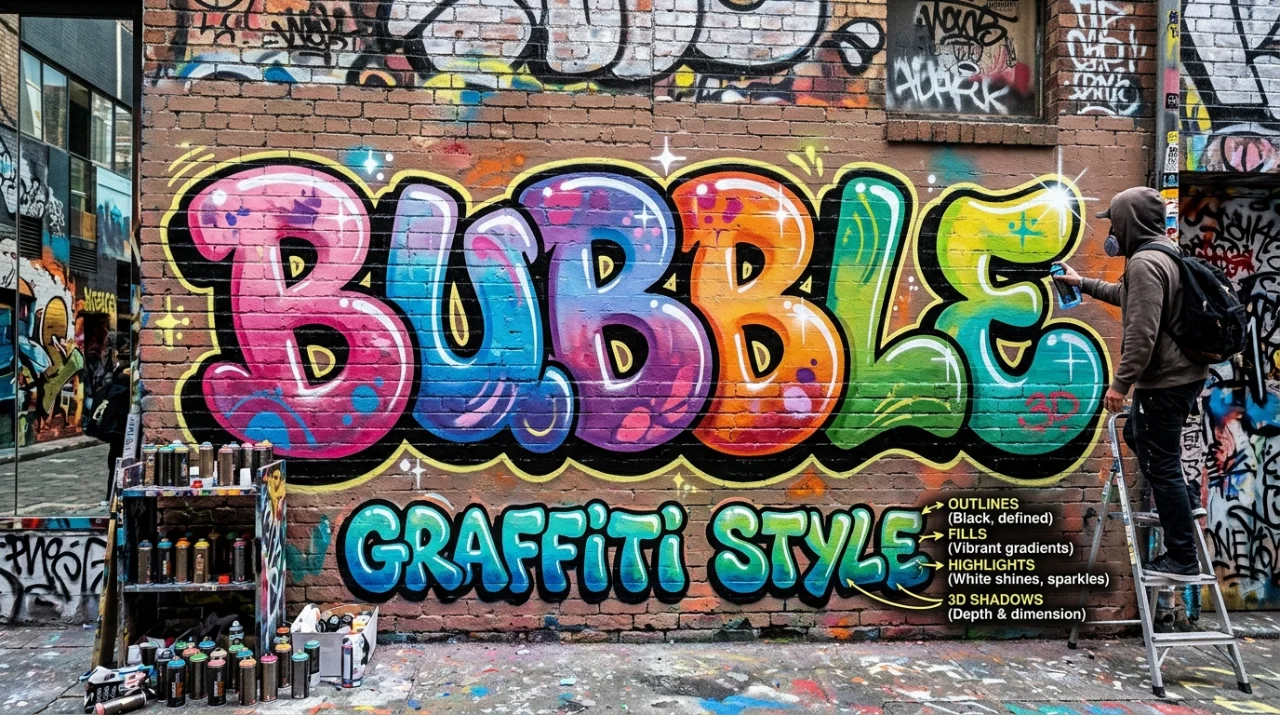
Bubble Graffiti Letters Guide Easy Steps, Styles Tips for Beginners
Bubble graffiti letters are one of the most popular styles in street art and lettering. They look soft, round, and playful, which makes them easy to read and fun to draw. If you are new to graffiti or want to improve your skills, this guide will help you understand everything in a clear and simple way.
What Are Bubble Graffiti Letters?
Bubble graffiti letter are rounded, puffy-style letters that look like bubbles. Artists use smooth curves instead of sharp edges. This style focuses on simplicity, flow, and bold outlines.
Many beginners start with this style because it is easy to learn. You do not need advanced drawing skills to create eye-catching results. At the same time, skilled artists can still make this style unique with colors, shadows, and effects.
Why Graffiti Letters Are So Popular
This style stands out for many reasons. First, it looks friendly and fun. Second, it works well on walls, paper, and digital art. Third, it allows artists to experiment without strict rules.
Bubble graffiti letter are perfect for practice because they teach basic graffiti structure. Once you learn this style, you can move to more complex designs like wildstyle or 3D lettering.
Basic Structure
Before you start drawing, you need to understand the basic structure. Every letter follows simple rules:
ElementDescriptionWhy It Matters
OutlineThick outer lineMakes letters bold and visible
FillInside color or shadingAdds personality
ShadowDark area behind lettersCreates depth
HighlightsLight spotsMakes letters look shiny
Always start with a simple outline before adding details. This helps you keep the shape clean and balanced.
Step-by-Step Guide to Draw
You do not need expensive tools. Just a pencil, eraser, and marker are enough to begin.
Step 1: Write Basic Letters
Start by writing normal letters lightly with a pencil. Keep spacing even.
Step 2: Add Bubble Shape
Draw rounded lines around each letter. Make edges soft and curved. Avoid sharp corners.
Step 3: Connect Letters
Slightly overlap letters to create flow. This makes your design look more like graffiti.
Step 4: Outline Boldly
Use a marker to draw thick outlines. This is a key feature of bubble graffiti letter.
Step 5: Add Details
Add shadows, highlights, or small effects like dots or drips.
Step 6: Color Your Work
Use bright colors or gradients. Keep contrast strong so letters stand out.
Practice these steps daily to improve speed and style.
Best Tools for Creating
Different tools give different results. Here is a simple comparison:
ToolUseBenefit
PencilSketchingEasy to erase mistakes
MarkerOutlinesBold and clean lines
Spray PaintWall artAuthentic graffiti look
Digital TabletDigital artEasy editing and effects
Beginners should start with pencil and marker before using spray paint.
Common Mistakes to Avoid
Many beginners struggle because of small mistakes. Avoid these to improve faster:
Do not make letters too thin. Bubble graffiti letter need thick shapes to look right
Do not rush outlines. Clean outlines make your work look professional
Do not ignore spacing. Letters should not feel crowded or too far apart
Do not overuse colors. Too many colors can make your design messy
Keep your design simple and clean. This always works better.
Styling Techniques to Improve Your Work
Once you learn the basics, you can add style to your letters.
Add 3D Effect
Draw a shadow behind your letters. This makes them look like they are popping out.
Use Gradient Colors
Blend two or more colors smoothly. This creates a modern look.
Add Glow Effect
Draw a light outline around your letters using a bright color.
Include Backgrounds
Add clouds, bricks, or abstract shapes behind your text.
These small changes can turn simple bubble graffiti letters into professional artwork.
Color Ideas for Bubble Graffiti Letters
Color plays a big role in graffiti. Here are some popular combinations:
Primary ColorSecondary ColorEffect
BlueWhiteClean and cool
RedYellowBright and energetic
PurplePinkSoft and creative
BlackNeon GreenBold and edgy
Always use contrast so your letters remain easy to read.
How to Practice Effectively
Practice is the key to mastering this style. You do not need hours every day. Just 15–30 minutes of focused practice helps a lot.
Start with simple words like your name. Then move to longer words or phrases. Try different sizes and styles.
Repeat the same letters multiple times to build muscle memory. This improves your speed and control.
Digital vs Traditional Bubble Graffiti Letters
By understanding the basics, practicing regularly, and adding your own style, you can create impressive designs. Keep your shapes bold, your lines clean, and your colors strong. With time and effort, your bubble graffiti letter will look more professional and unique.
Start today with simple sketches and improve step by step. The more you practice, the better your results will be.